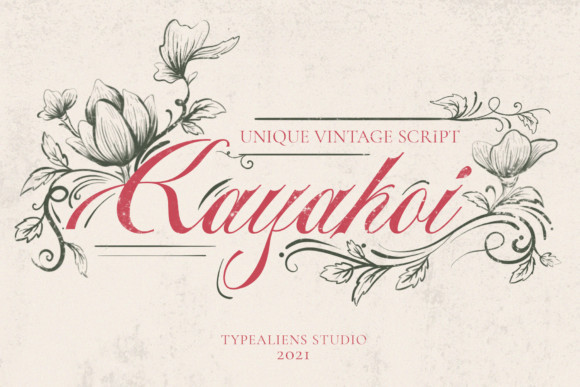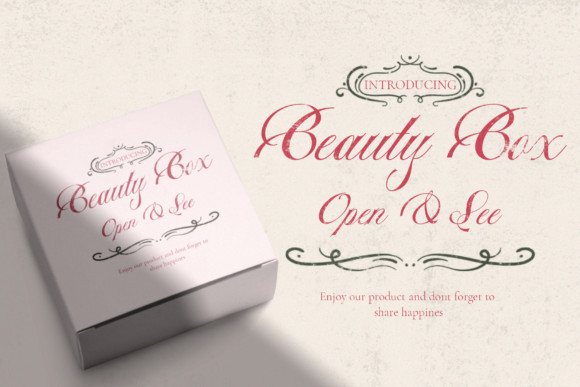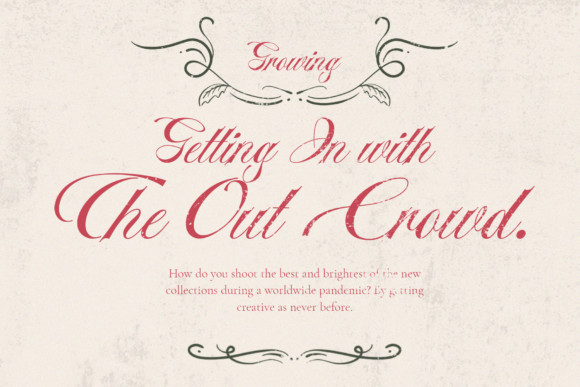
Kayakoi Font
Kayakoi is an elegant and vintage looking handwritten font, that emanates sophistication and elegance. Its stylish alternates and ligatures make this font the perfect match for any project.